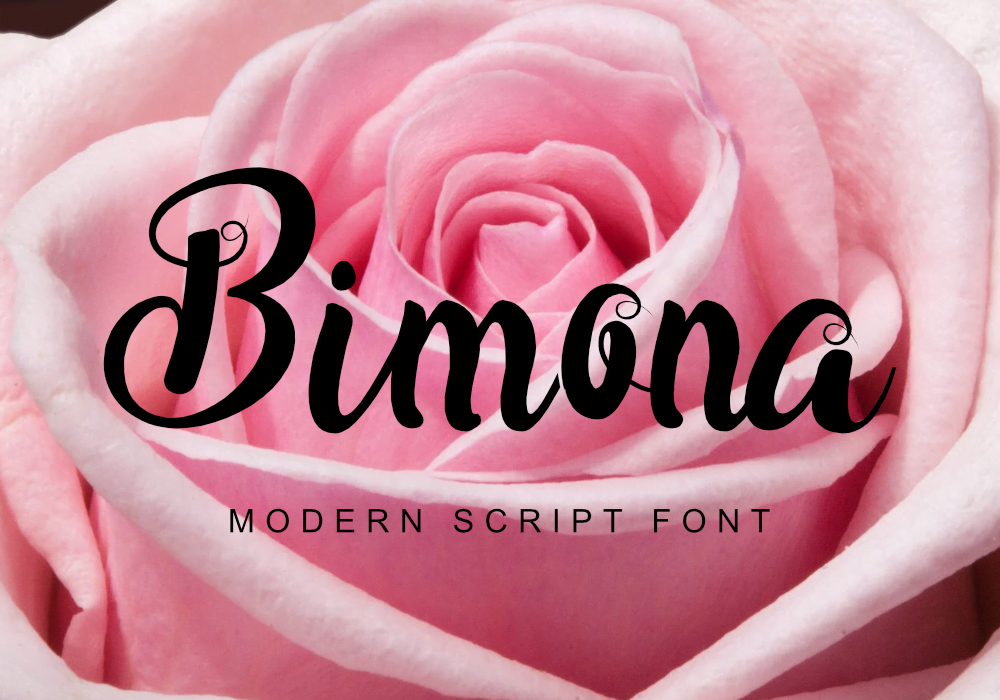
Bimona Font by GraphicsFamily Bimona is a delicate and flowing handwritten font. It looks stunning on wedding invitations, thank you cards, quotes, greeting cards, logos, business cards and every other design which needs a handwritten touch. Bimona Font is perfect for wedding invitations, greeting cards, social media banners, event promotional banners, packaging, etc. Enjoy! !IMPORTANT